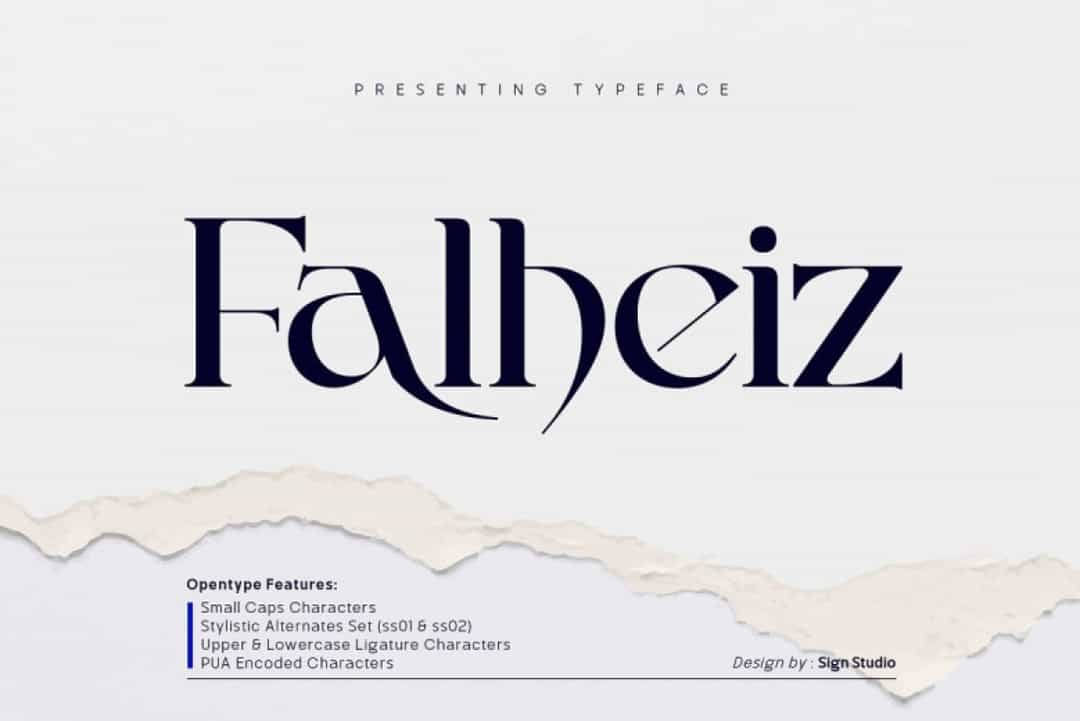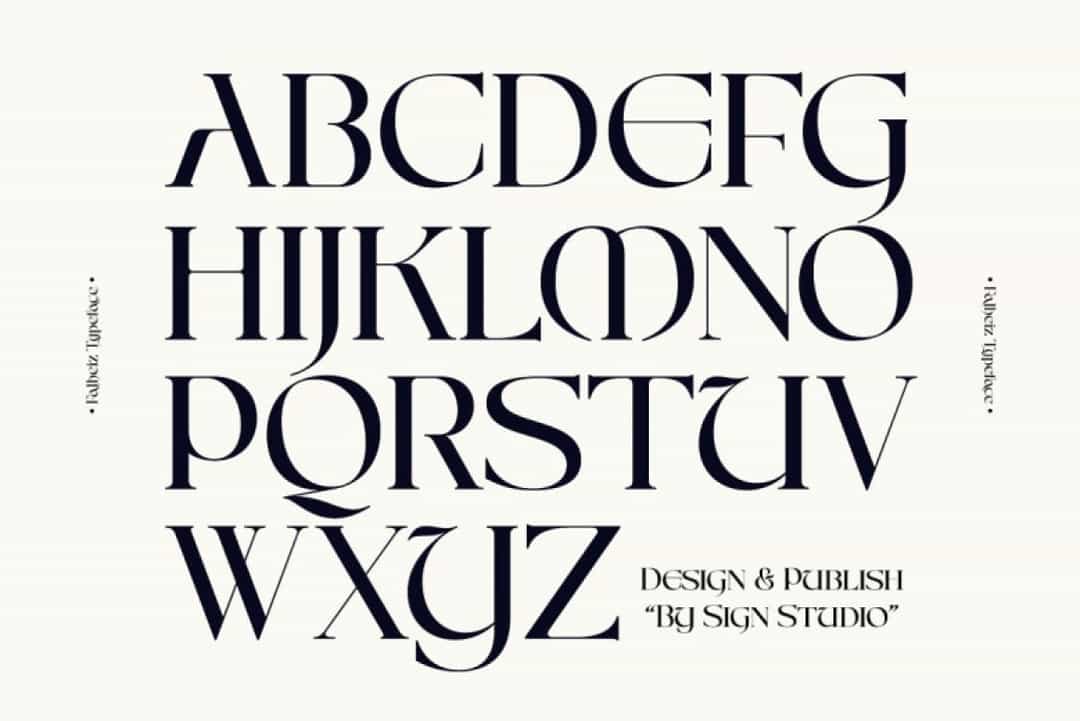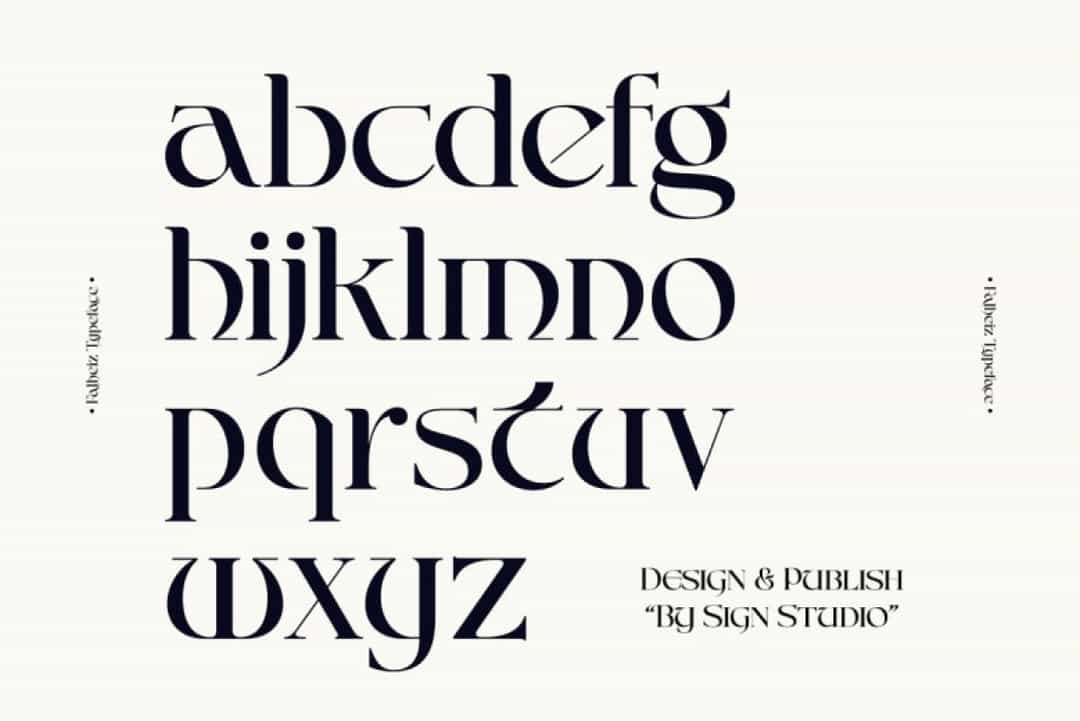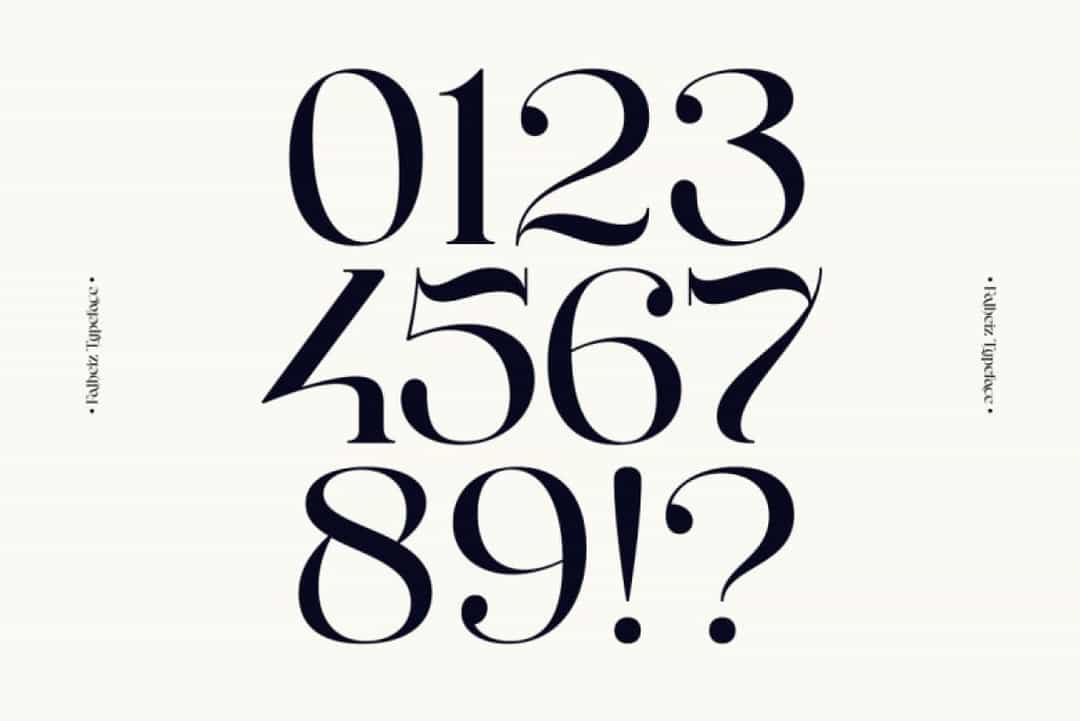
Falheiz can be described as an elegant serif typeface designed to convey a classic memorial appearance. A combination of traditional serif and copperplate, Falheiz features uppercase and lowercase fonts along with numbers punctuation, ligatures punctuation as well as some alternate fonts for full compatibility.